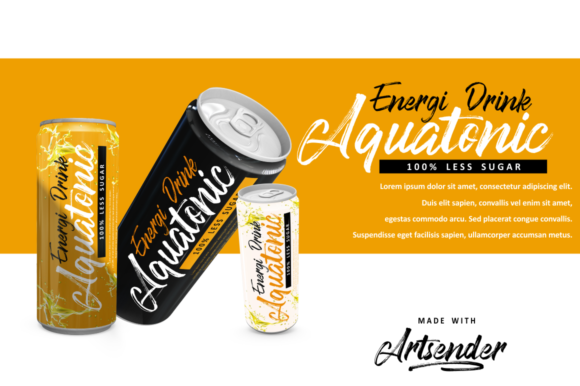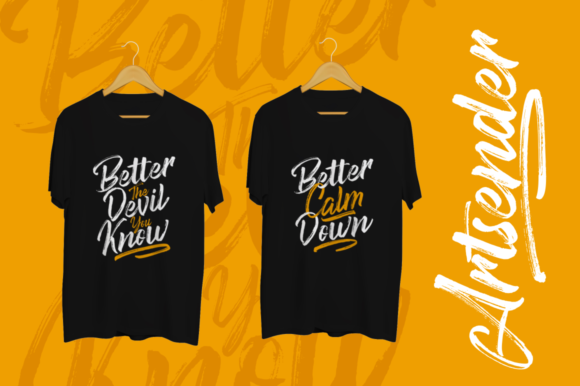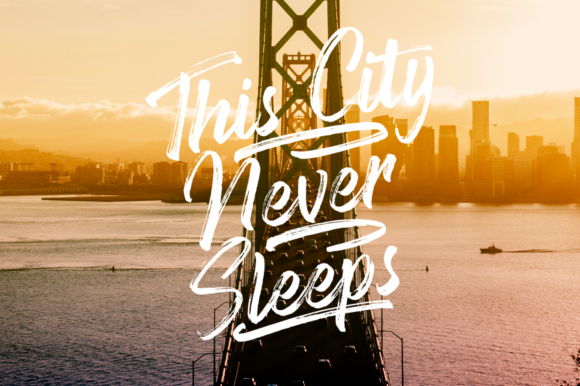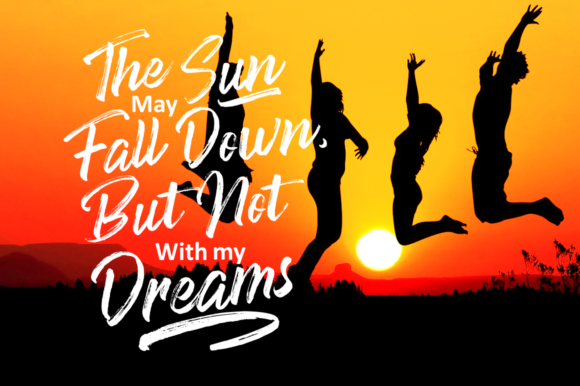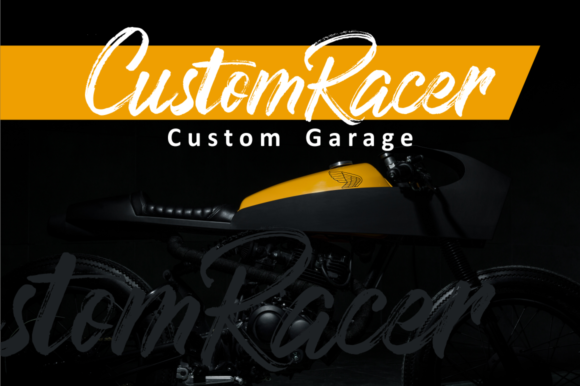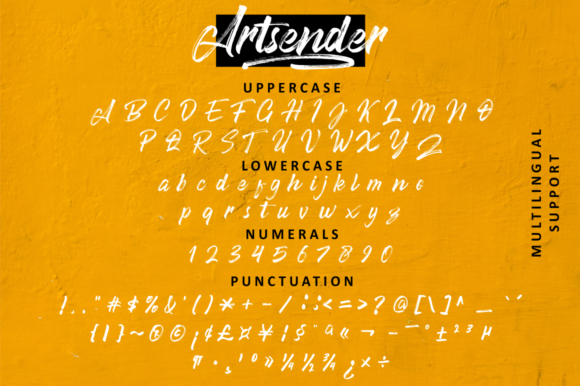
Introducing Artsender Font: The Perfect Blend of Casual and Quirky
Are you a designer, crafter, or DIY enthusiast looking for a font that can add a personal touch to your projects? Look no further than Artsender Font, a casual, fun handwritten font created by using a brush pen. With its clean and quirky aesthetic, Artsender Font is the perfect fit for all of your logos, branding, social media, and crafty DIY projects.
The Story Behind Artsender Font
Artsender Font is a unique and creative font that was designed to capture the imperfections and charm of handwritten text. The font was created using a brush pen, which gives it a distinctive and organic feel. The result is a font that is both clean and quirky, making it perfect for a wide range of applications.
Key Features of Artsender Font
- Handwritten aesthetic: Artsender Font has a warm and personal feel that is perfect for adding a touch of personality to your projects.
- Clean and legible: Despite its handwritten aesthetic, Artsender Font is clean and easy to read, making it perfect for use in a variety of contexts.
- Quirky and playful: Artsender Font has a playful and quirky feel that is perfect for adding a touch of whimsy to your projects.
- Versatile: Artsender Font can be used for a wide range of applications, from logos and branding to social media and DIY projects.
Why Choose Artsender Font?
There are many reasons why Artsender Font is a great choice for designers, crafters, and DIY enthusiasts. Here are just a few:
- Unique aesthetic: Artsender Font has a unique and distinctive aesthetic that will help your projects stand out from the crowd.
- Easily readable: Despite its handwritten aesthetic, Artsender Font is easy to read and understand, making it perfect for use in a variety of contexts.
- Customizable: Artsender Font can be customized to fit your specific needs, making it perfect for use in a wide range of applications.
- Support for multiple languages: Artsender Font supports multiple languages, making it a great choice for designers and crafters who work with international clients.
Using Artsender Font in Your Projects
Artsender Font is a versatile font that can be used in a wide range of applications. Here are just a few ideas for using Artsender Font in your projects:
- Logos and branding: Artsender Font is perfect for use in logos and branding materials, such as business cards, letterheads, and packaging.
- Social media graphics: Artsender Font can be used to create eye-catching social media graphics, such as Facebook posts, Instagram stories, and Twitter headers.
- DIY projects: Artsender Font is perfect for use in DIY projects, such as crafting, scrapbooking, and party planning.
- Web design: Artsender Font can be used in web design, such as in website headers, navigation menus, and blog posts.
Tips for Getting the Most Out of Artsender Font
Here are a few tips for getting the most out of Artsender Font:
- Experiment with different colors: Artsender Font looks great in a variety of colors, so don’t be afraid to experiment and find the perfect color for your project.
- Use it with other fonts: Artsender Font can be paired with other fonts to create a unique and eye-catching aesthetic.
- Adjust the size and style: Artsender Font can be adjusted to fit your specific needs, so don’t be afraid to experiment with different sizes and styles.
Artsender Font is a unique and versatile font that is perfect for designers, crafters, and DIY enthusiasts. With its clean and quirky aesthetic, Artsender Font is the perfect fit for all of your logos, branding, social media, and crafty DIY projects. Whether you’re looking for a font that is easy to read, customizable, or simply fun and playful, Artsender Font is a great choice.